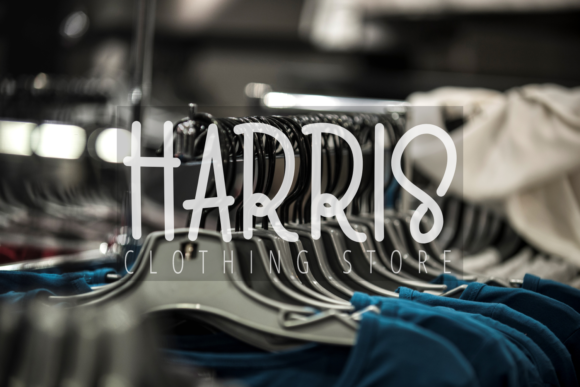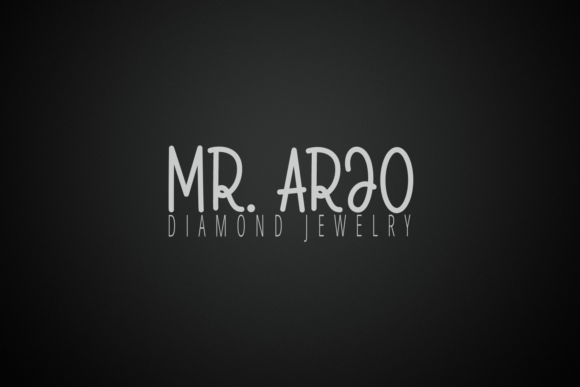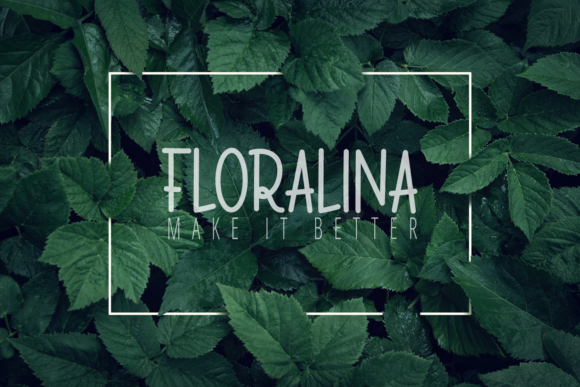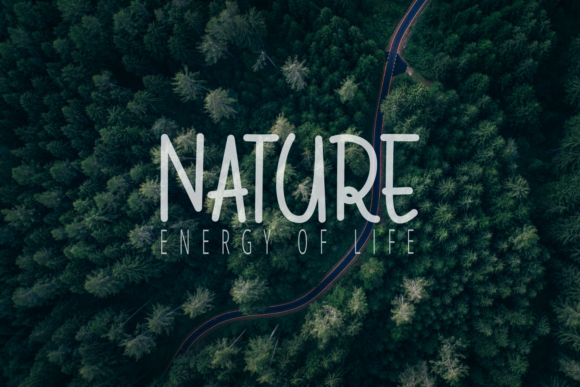
About Shine Bright Font
Shine Bright is a simple, informal and adaptable handwritten font. Whether you are using it for cartoon-related designs, children games, quotes, titles, brand names, book covers, posters, or just any creation that requires a touch of joy, this font is a great choice.